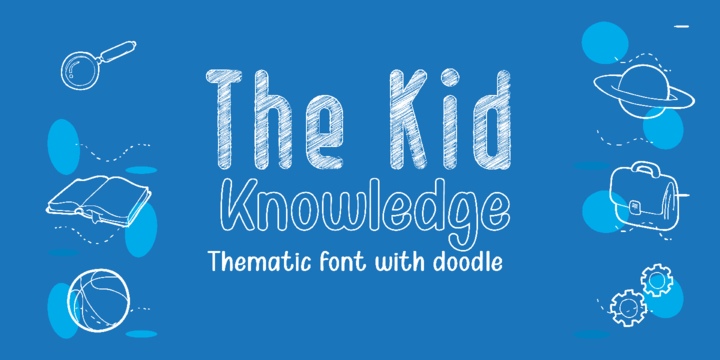
Kid Knowledge Font
Kid Knowledge Font is ideal for children's book illustrations, educational materials, playground signage, daycare centers, toy packaging, children's clothing designs, learning apps, school posters, birthday party invitations, and nursery wall decorations.
What makes Kid Knowledge Font exciting is its playful hand-drawn character that perfectly captures the innocence and creativity of childhood learning. This delightful typeface features rounded edges, bouncy letterforms, and a whimsical design that instantly connects with young audiences while maintaining excellent readability for educational content.
Kid Knowledge Font family includes regular and bold weights, along with decorative elements and educational symbols, providing teachers and designers with complete resources for creating engaging learning materials and child-friendly communications.
Kid Knowledge Font brings joy and wonder to every educational project with its carefully crafted letterforms that mirror natural handwriting patterns children recognize and love. This friendly typeface creates an inviting atmosphere that encourages reading and learning while maintaining the professional quality educators require for instructional materials.
Educational publishers consistently choose Kid Knowledge Font Free Download for textbooks, workbooks, and digital learning platforms because of its ability to reduce reading fatigue and increase comprehension among young learners. The font's organic shapes and comfortable spacing create a stress-free reading environment that supports cognitive development.
The comprehensive character set includes uppercase and lowercase letters, numbers, basic punctuation, and special educational symbols commonly used in primary education settings. Kid Knowledge Font supports multiple languages, making it perfect for diverse classroom environments and international educational programs.
Kid Knowledge Font performs exceptionally well in both print and digital applications, maintaining its charming personality across various media formats. From interactive tablets to printed worksheets, this versatile typeface ensures consistent visual appeal and optimal readability for developing readers.
Teachers, parents, and educational content creators appreciate how Kid Knowledge Font bridges the gap between fun and functionality. Its approachable design encourages reluctant readers while providing the clarity needed for effective learning outcomes in subjects ranging from phonics to mathematics.
Whether you're designing educational games, creating classroom displays, or developing children's apps, Kid Knowledge Font delivers the perfect combination of educational effectiveness and visual appeal that captures young imaginations.